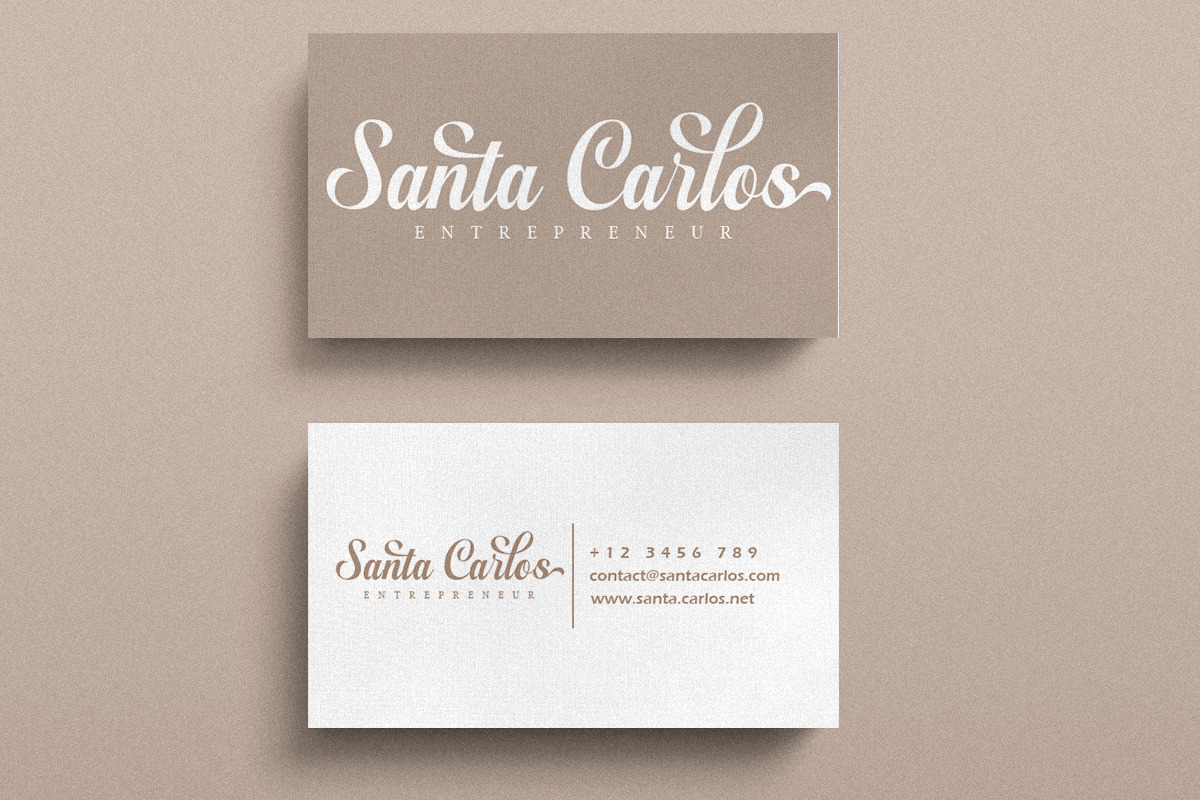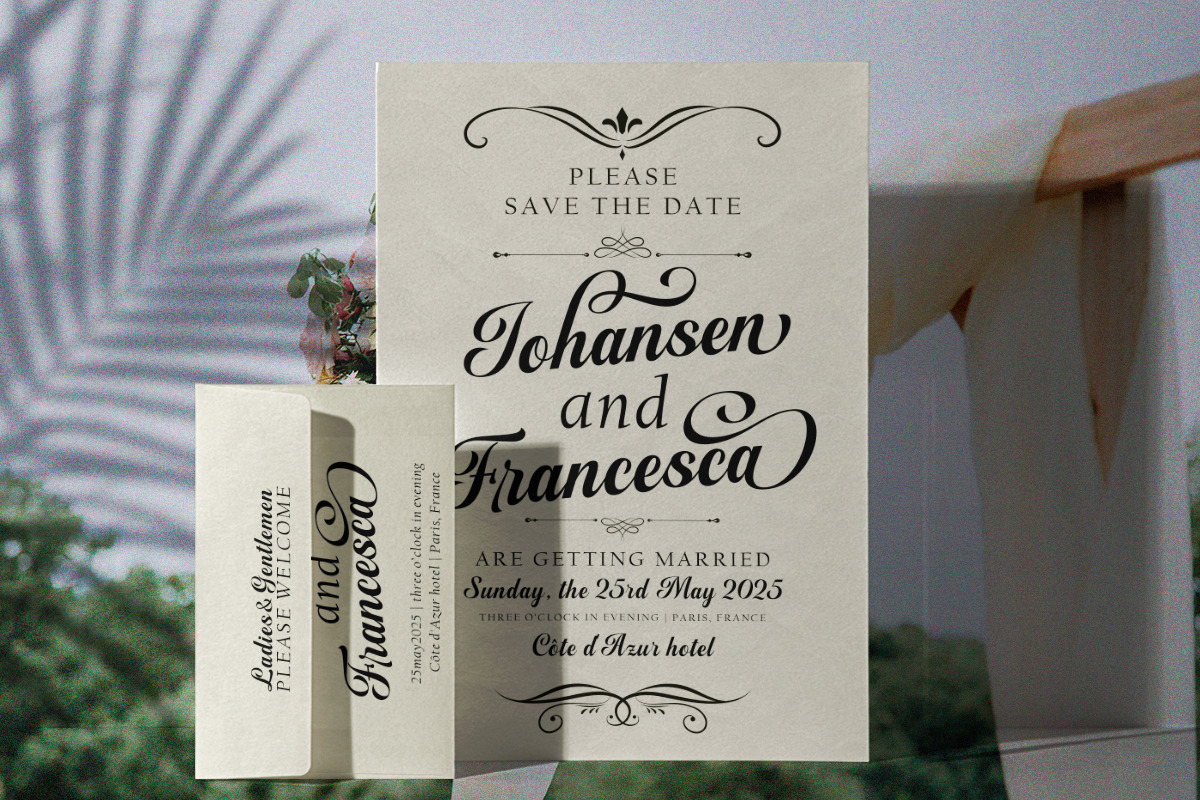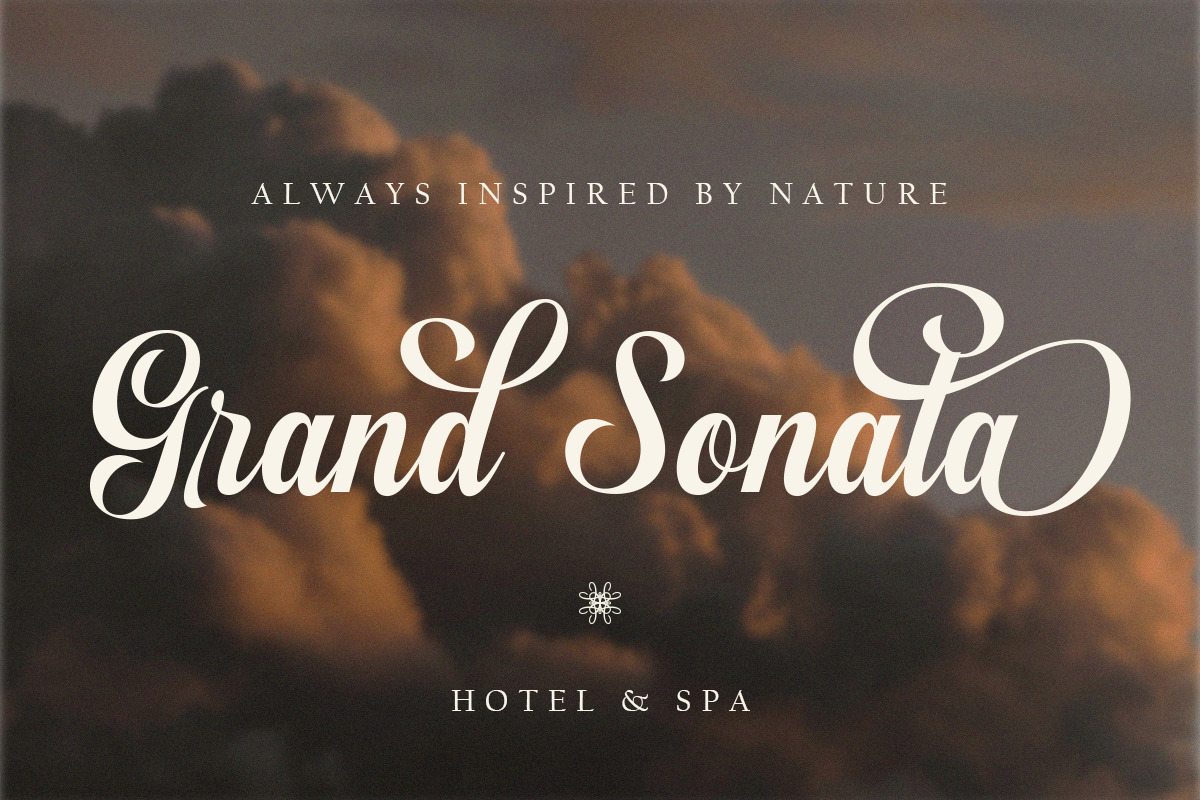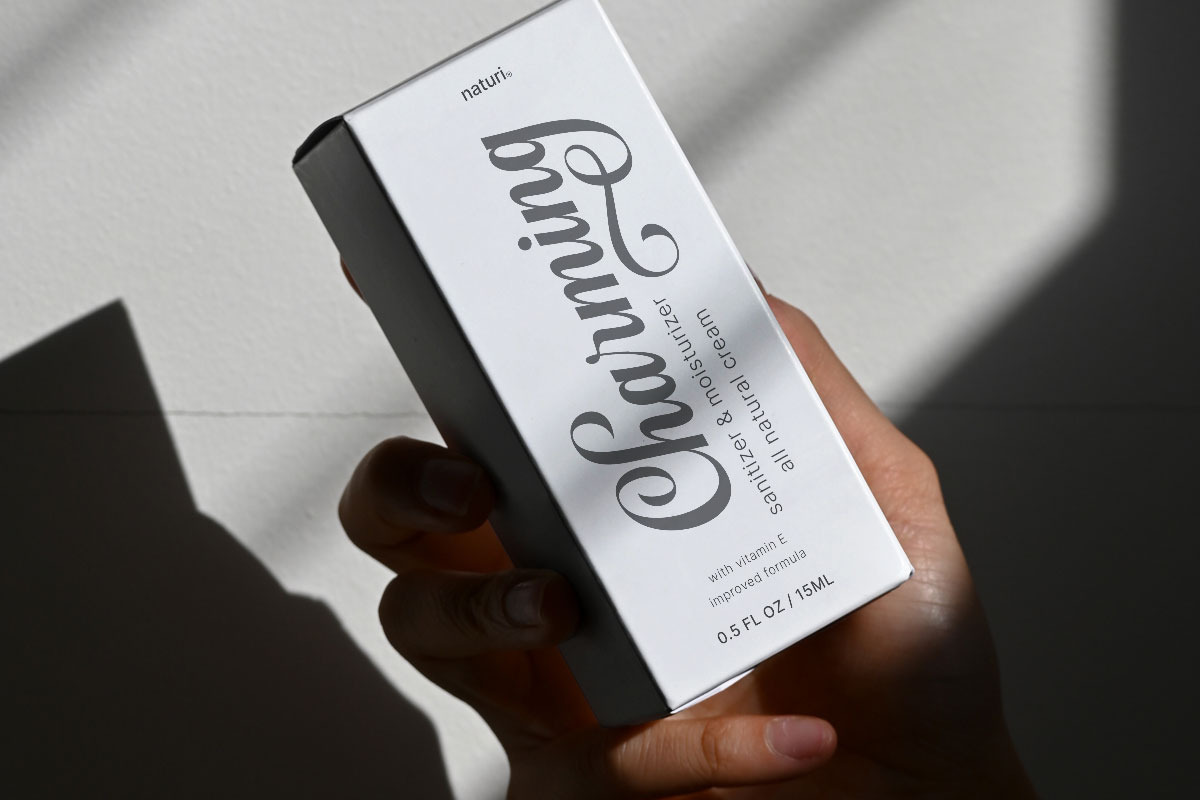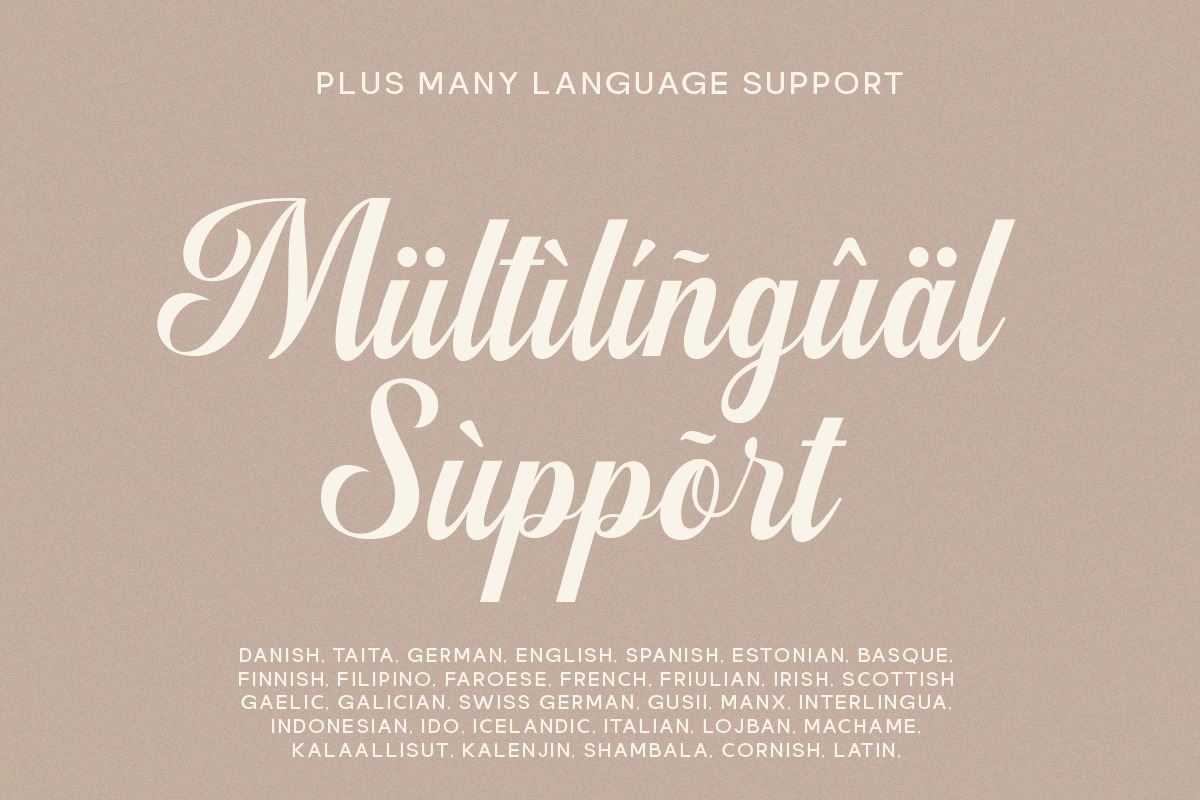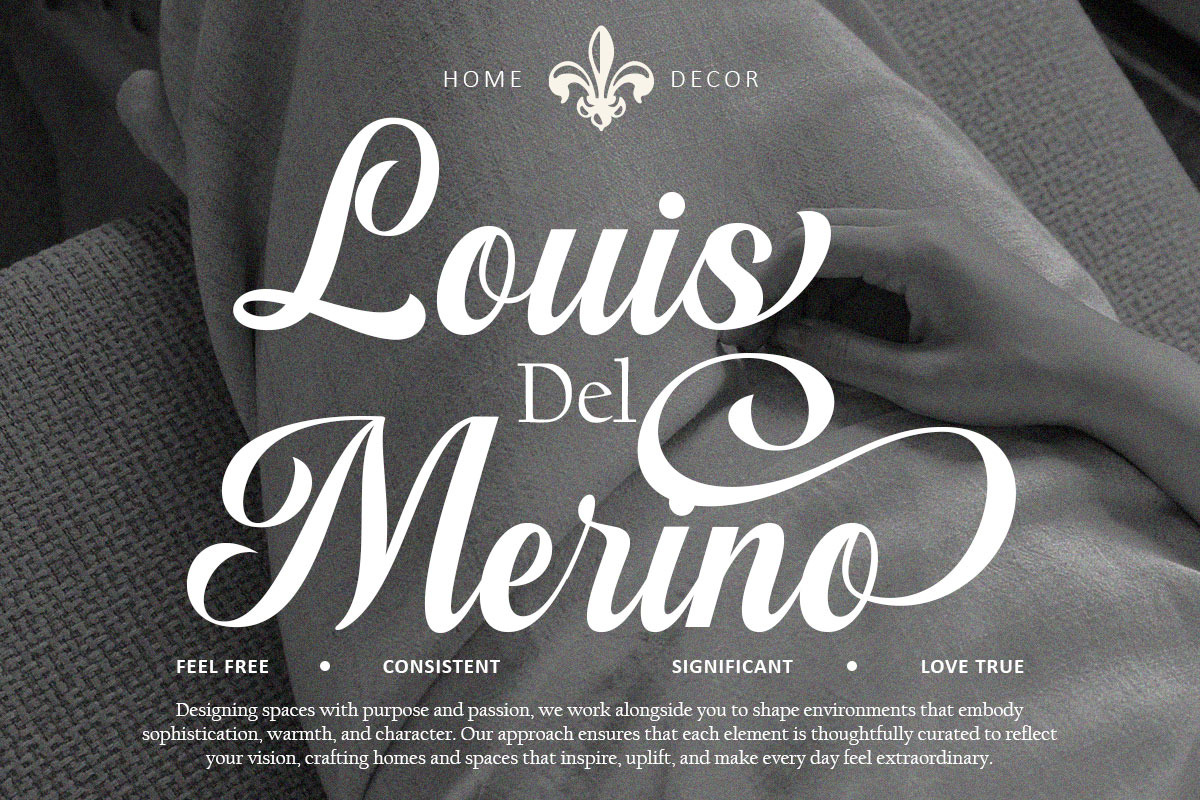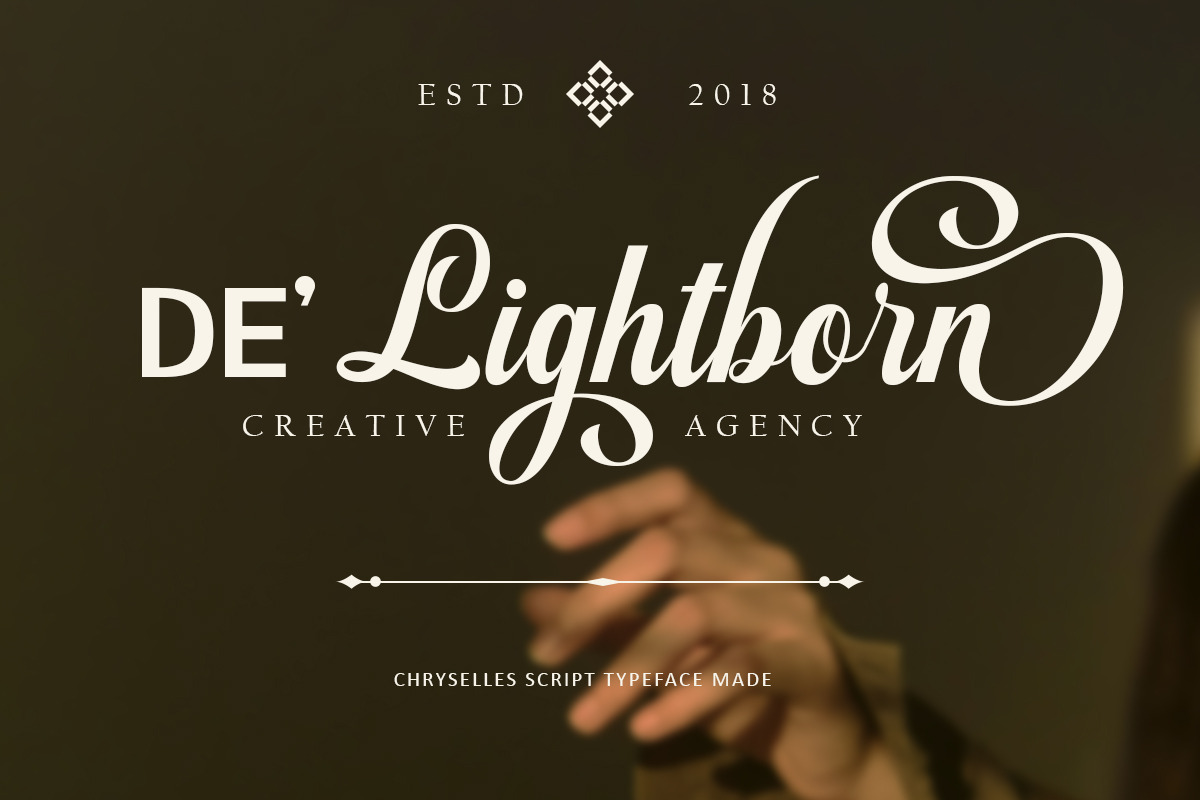
Chryselles Script
Chryselles Script is a script font that offers unique and stylish characters. Each letter and number in this font has its own charm, creating a distinctive and attractive look.
In addition, this font is equipped with OpenType features such as a style set of up to 130 that gives you a variety of letter variations, ligatures, and multilingual support. This font is perfect for logo designs, invitations, posters, and various other graphic design projects.